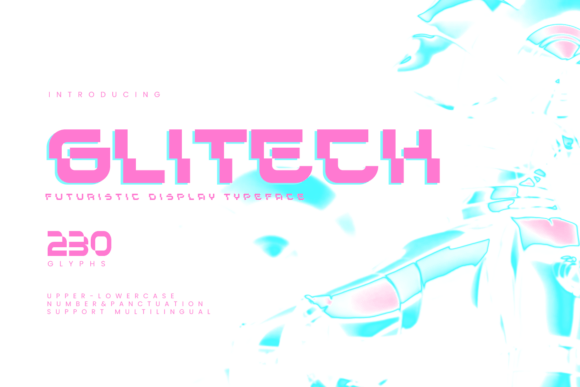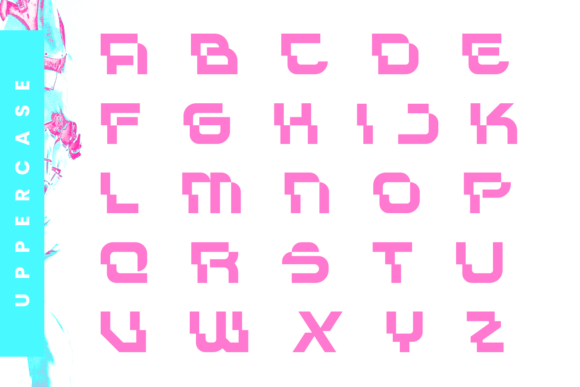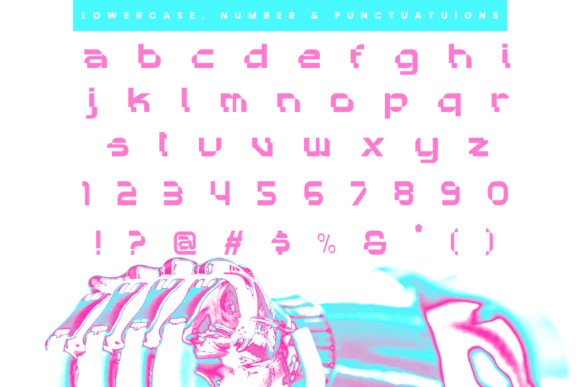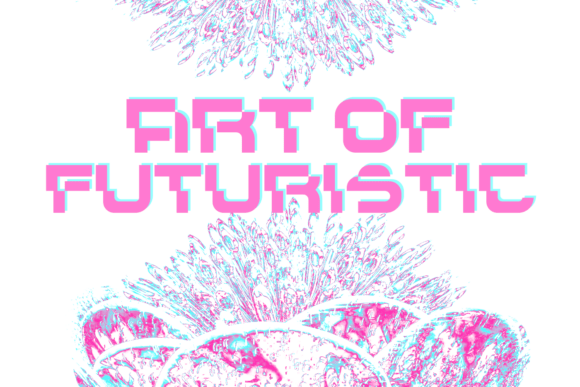
Glitech Font: Futuristic Display Font for Modern Logo Design
About the Glitech Font
Meet Glitech Font, a stunning font that brings a touch of elegance and professionalism to any design. Glitech is a display font with a modern and futuristic theme. This font has a shape inspired by the glitch shape.
Glitech is perfect for branding projects, logos, wedding designs, social media posts, advertisements, product packaging, product designs, labels, photography, watermarks, invitations, stationery, and any project that requires a modern and futuristic theme font.
Glitech’s bold, futuristic aesthetic makes it ideal for headlines, short impactful statements, and logo design. It excels in branding for tech companies, gaming, and futuristic-themed products, adding a striking visual element to packaging and posters. However, its distinctive style is less suitable for body text or UI elements where readability over long stretches is paramount.
Consider pairing Glitech with a clean sans-serif like Open Sans for body copy or a more geometric sans-serif like Futura for a balanced, modern feel. For a slightly softer contrast, a neutral serif such as Lora could provide elegance and readability. Avoid pairing it with overly ornate scripts which would clash with its sharp, angular forms.
Glitech projects a powerful, modern, and slightly rebellious personality. Its strong visual impact is best used sparingly, as a focal point rather than a dominant element across the entire design.